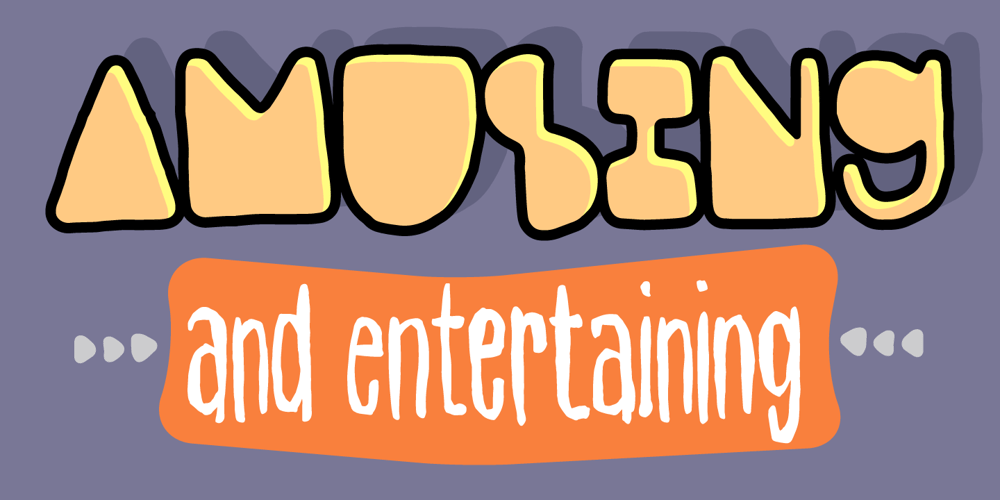
Jernhelbred Font Family was designed by published by Bogstav. Jernhelbred contains 4 styles and family package options. The Jernhelbred family has 3 different text fonts. One for headlines, one for massive text and a brush font for something decorative. Jernhelbred also comes with a doodle font with different doodles – suitable for almost anything, but meant to be used along with the Jernhelbred Title font.